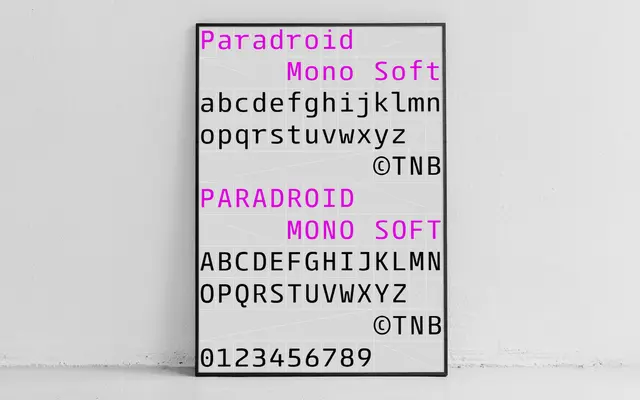
Paradroid Mono Soft
A rounded variant of Paradroid Mono that softens its geometric grotesque origins with curved terminals while keeping a neutral, functional character.
Sitting midway between grotesque and geometric styles, this monospaced family adds rounded edges to the balanced proportions of the original Paradroid Mono. Four weights with matching italics and over 450 characters per style make it practical across code, UI and editorial contexts where some warmth is wanted without sacrificing clarity. OpenType features include stylistic zeros, fractions, numerators and denominators, with coverage across Western, Southern and Central European Latin.
A monospaced typeface sitting between grotesque and geometric styles, with rounded terminals that add softness to an otherwise neutral, precision-driven design.